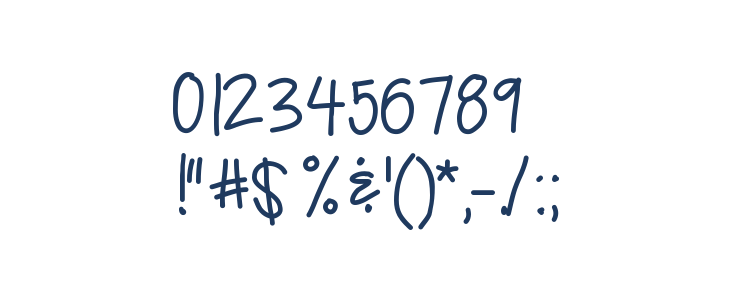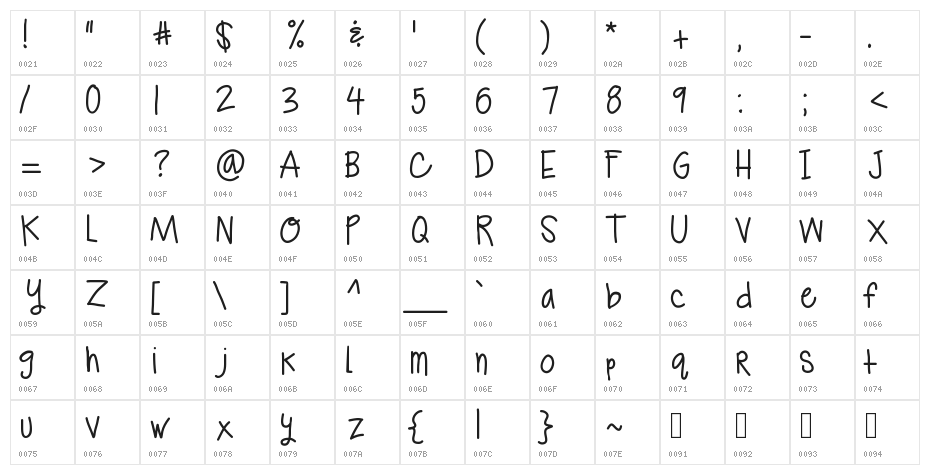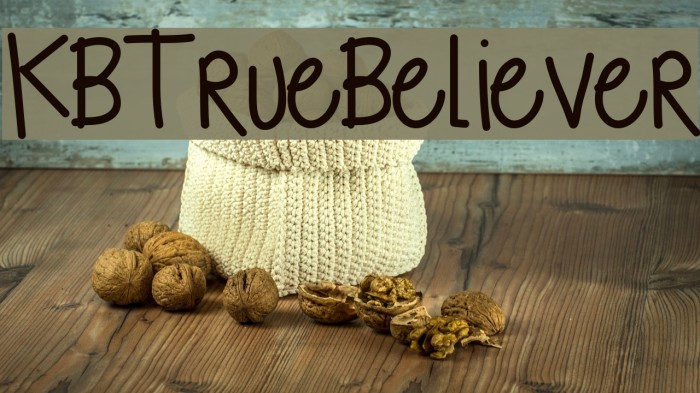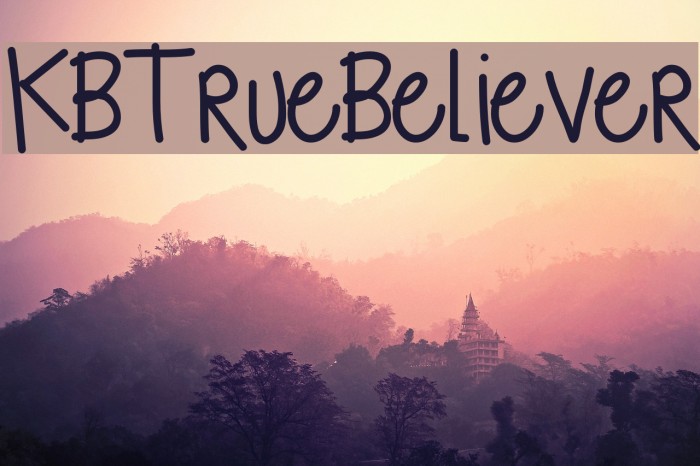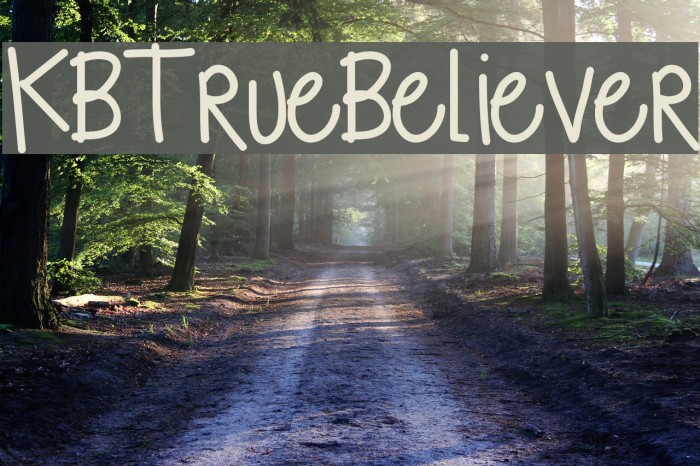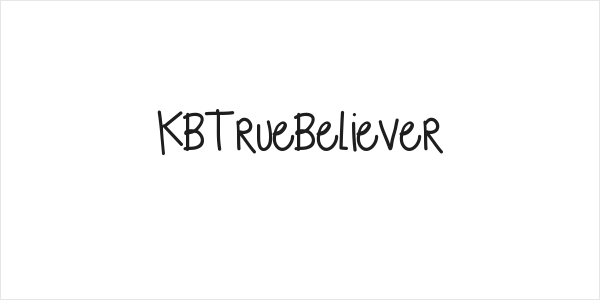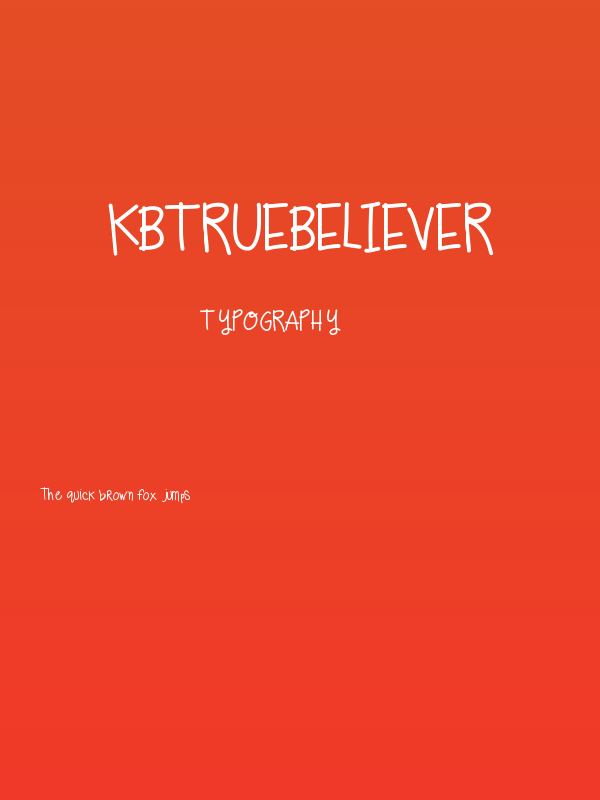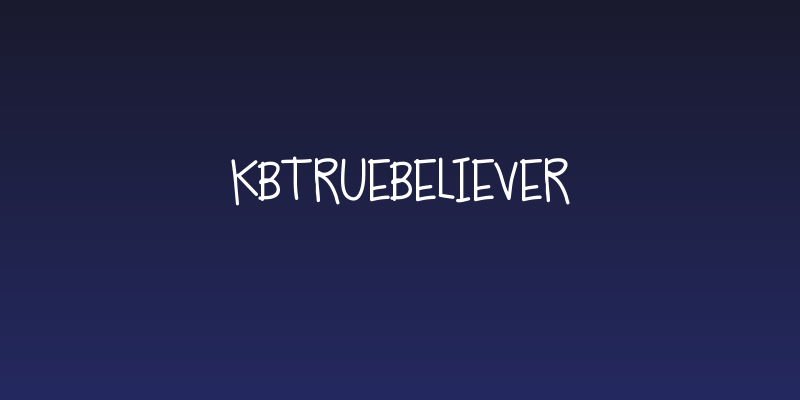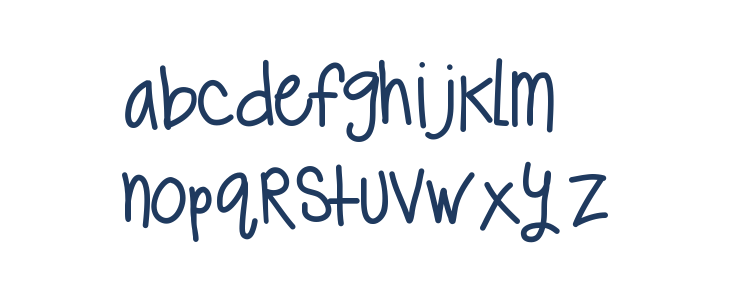
KBTrueBeliever Font
KBTrueBeliever Description
This playful and informal font features a handwritten style with a casual and friendly appearance. The characters are slightly irregular, giving it a natural and organic feel. The uppercase and lowercase letters are distinct yet harmonious, with rounded edges and a consistent stroke width. The numerals and special characters maintain the same whimsical style, making it versatile for various creative applications. The font's overall appearance is approachable and lively, suitable for projects that require a personal touch.
| Use Case | Headlines, Informal texts, Creative projects |
| Proposed Projects | Ideal for greeting cards, children's books, casual branding, and social media graphics. |